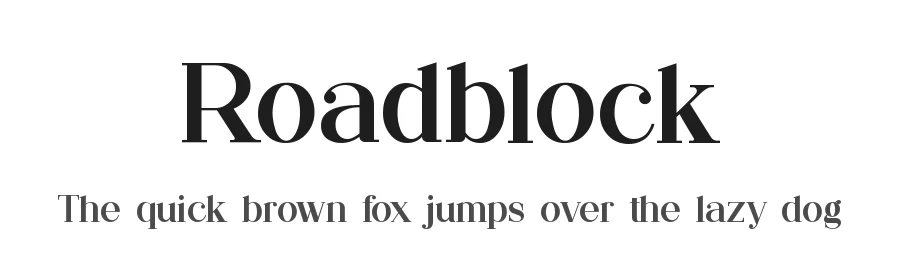
About Borniarte Font
Borniarte Specifications
Borniarte supports 213 languages.
Borniarte Font is a versatile serif font that works for both headings and body text. Pair it with a contrasting sans-serif or slab serif font to add visual interest and a clear distinction between titles and body copy.